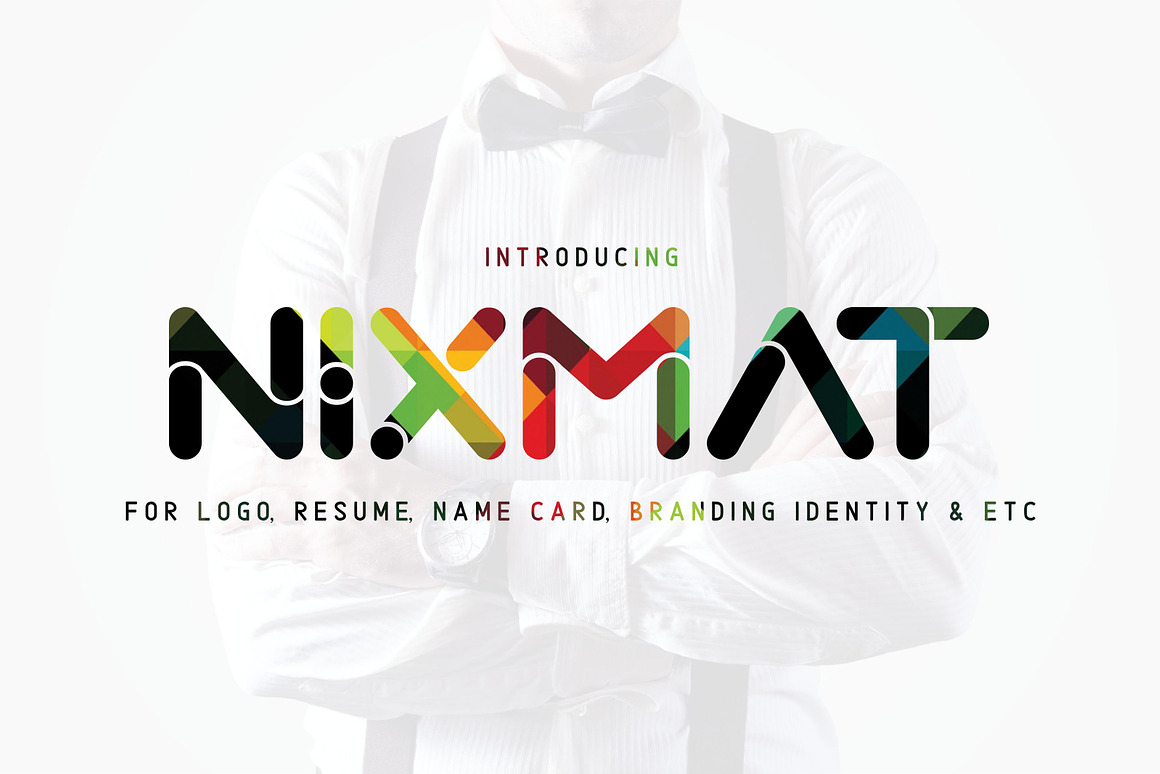
Nixmat | A Brand Identity Font
Nixmat | A Brand Identity Font is perfect for corporate logo designs, tech startup branding, modern website headers, business presentations, architectural firm identities, consulting company materials, innovative product packaging, professional letterheads, and cutting-edge marketing campaigns.
What makes Nixmat | A Brand Identity Font exciting is its powerful geometric foundation combined with distinctive character details that create instant brand recognition and memorability. The font's bold personality and strategic design elements ensure maximum visual impact while maintaining professional credibility, making it the ultimate choice for businesses seeking to establish dominant market presence through superior typography.
Nixmat | A Brand Identity Font family includes multiple weights from Light to Black, along with condensed and extended variations, providing comprehensive branding solutions with matching italic styles for complete typographic systems and versatile brand identity applications.
The precision-engineered letterforms ensure optimal performance across all media channels, from digital platforms to large-scale environmental graphics. Advanced OpenType features include stylistic alternates and contextual substitutions that enhance brand customization possibilities.
Nixmat | A Brand Identity Font sets new standards in the branding typography category through its unique combination of technical excellence and strategic design thinking. This exceptional typeface doesn't just display text—it builds brands, communicates values, and drives business success through purposeful design innovation.